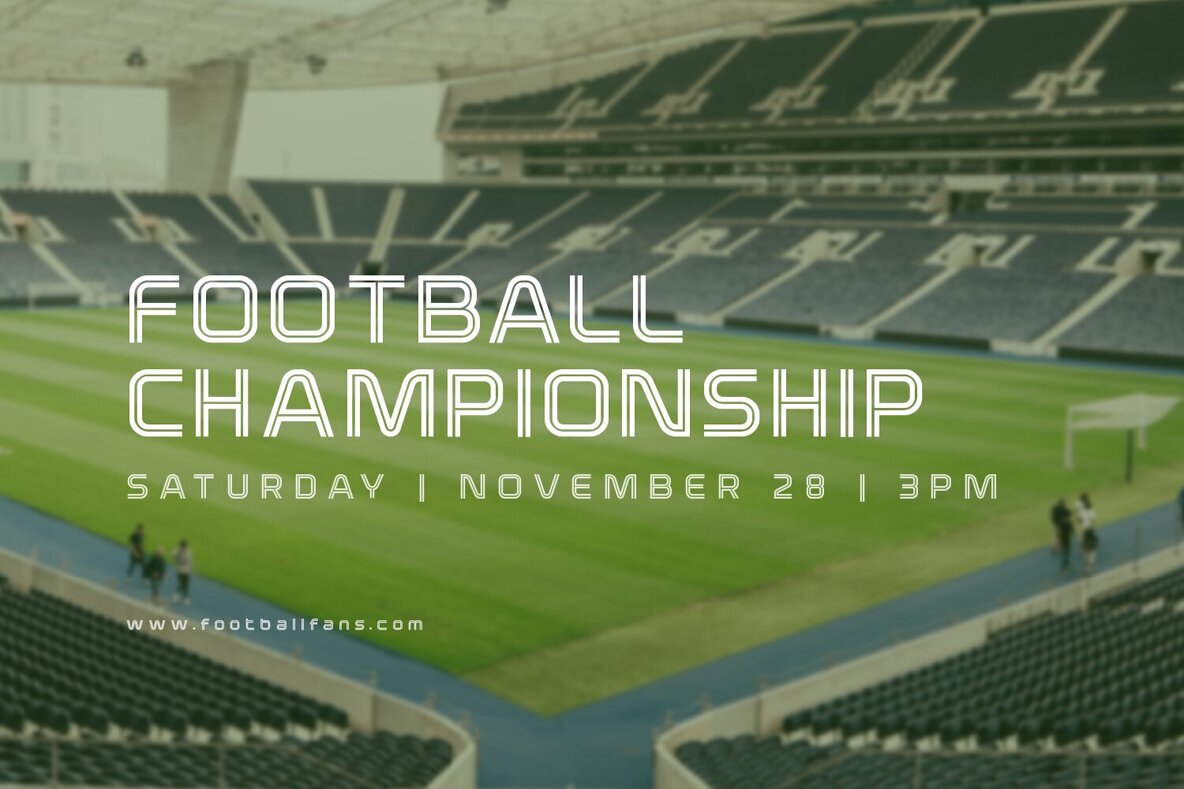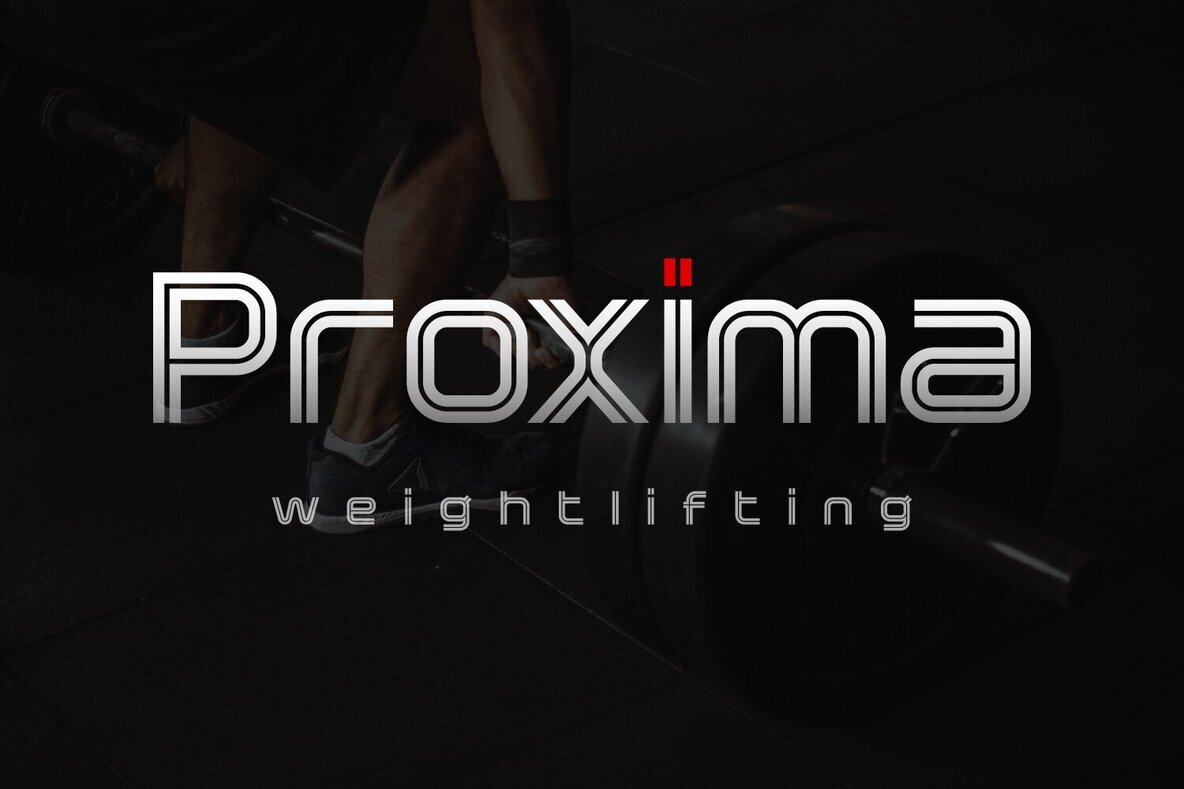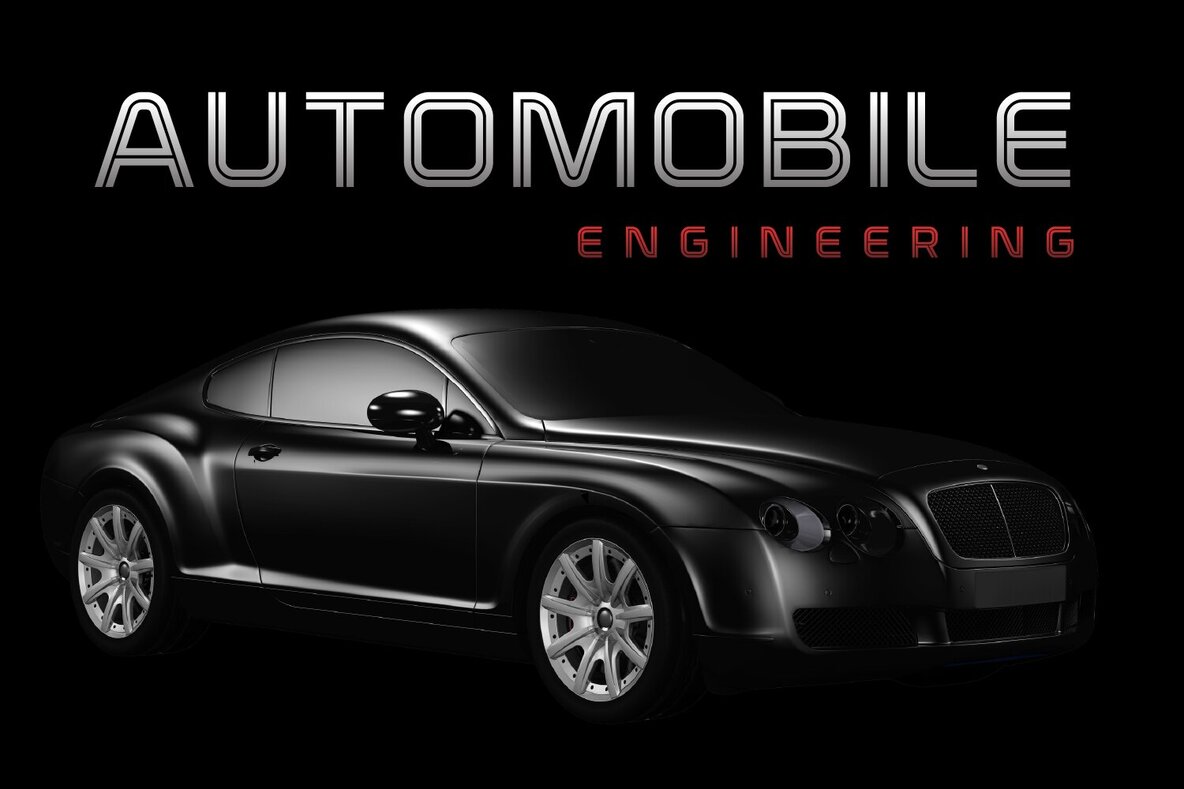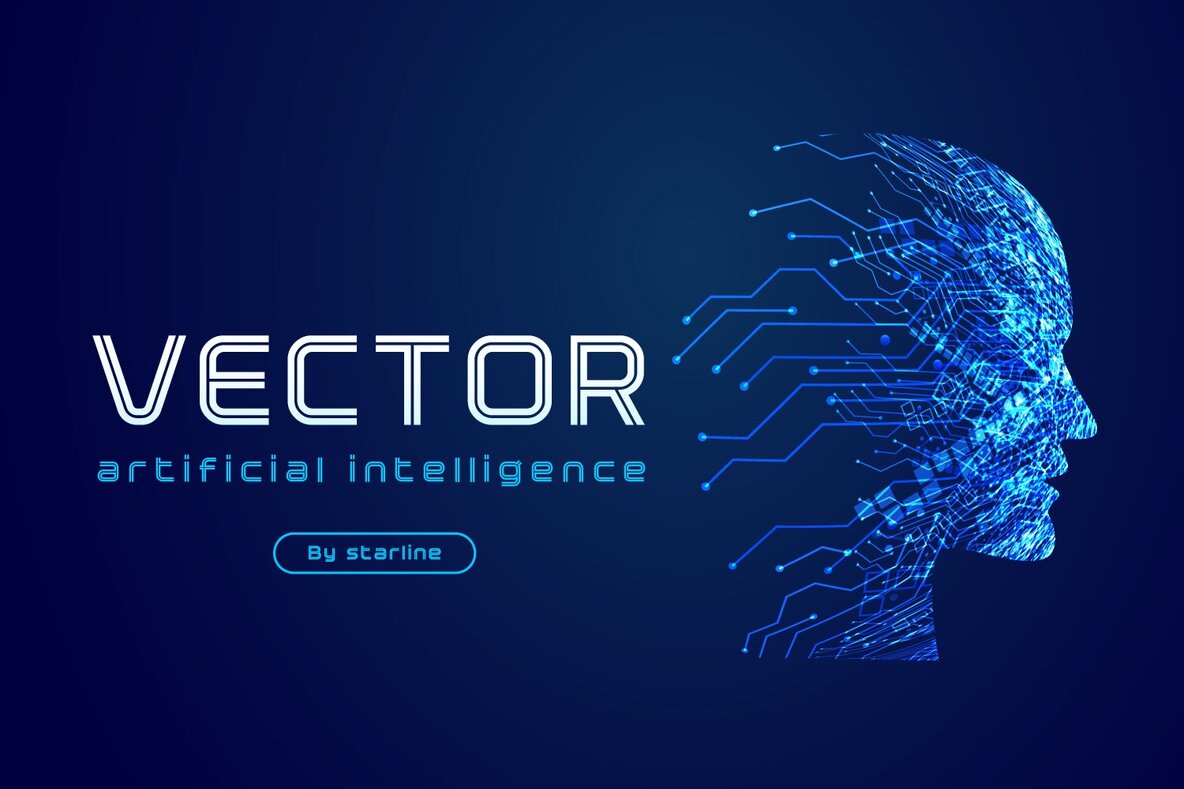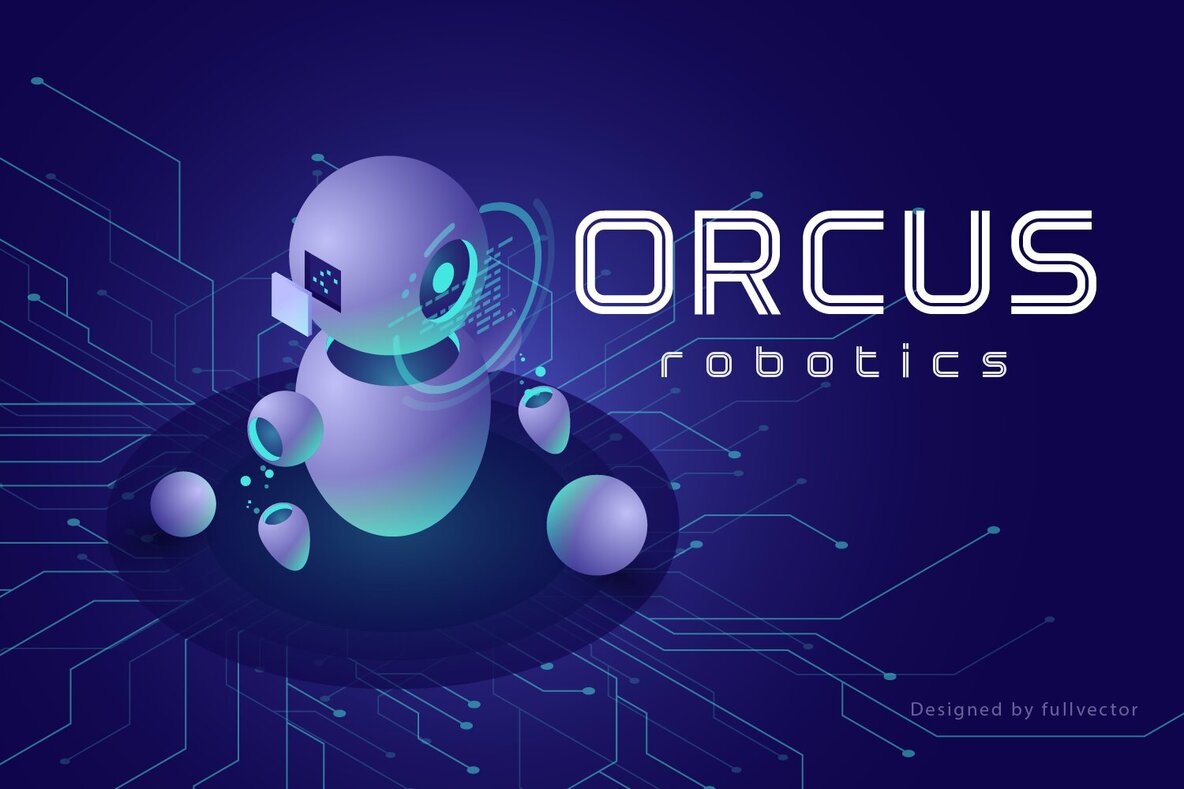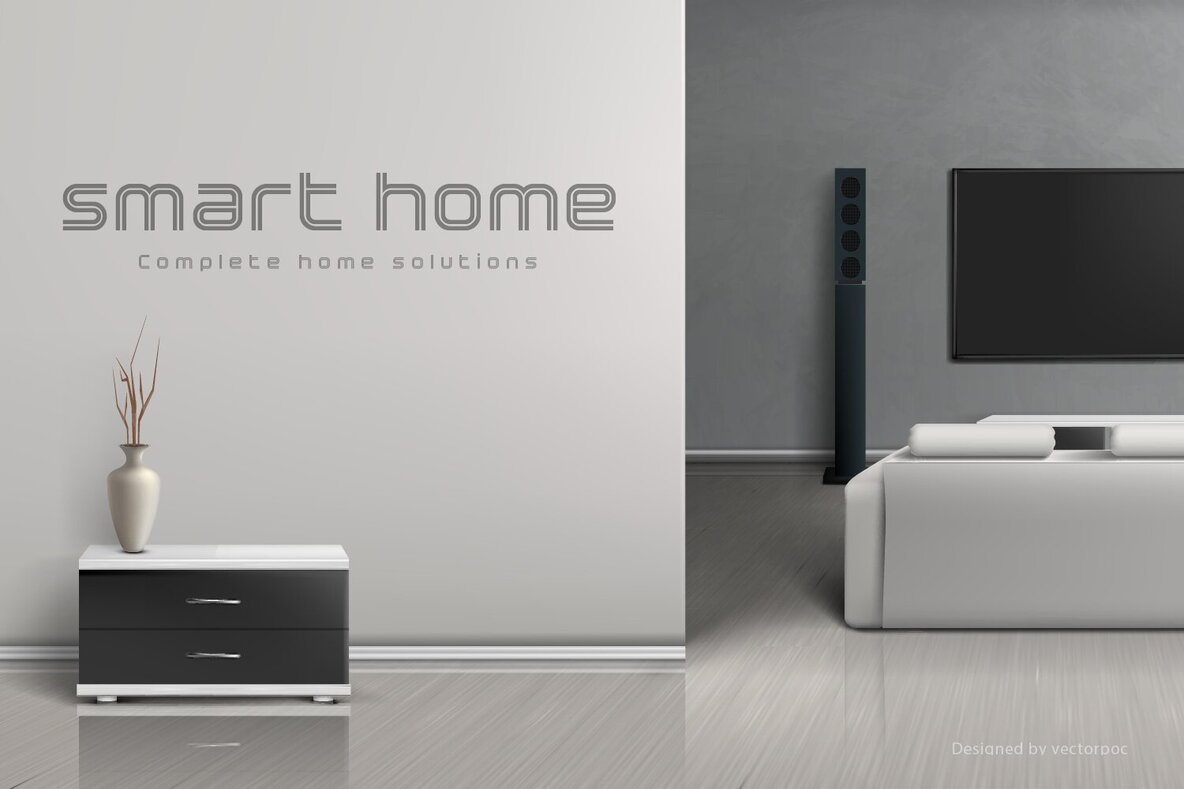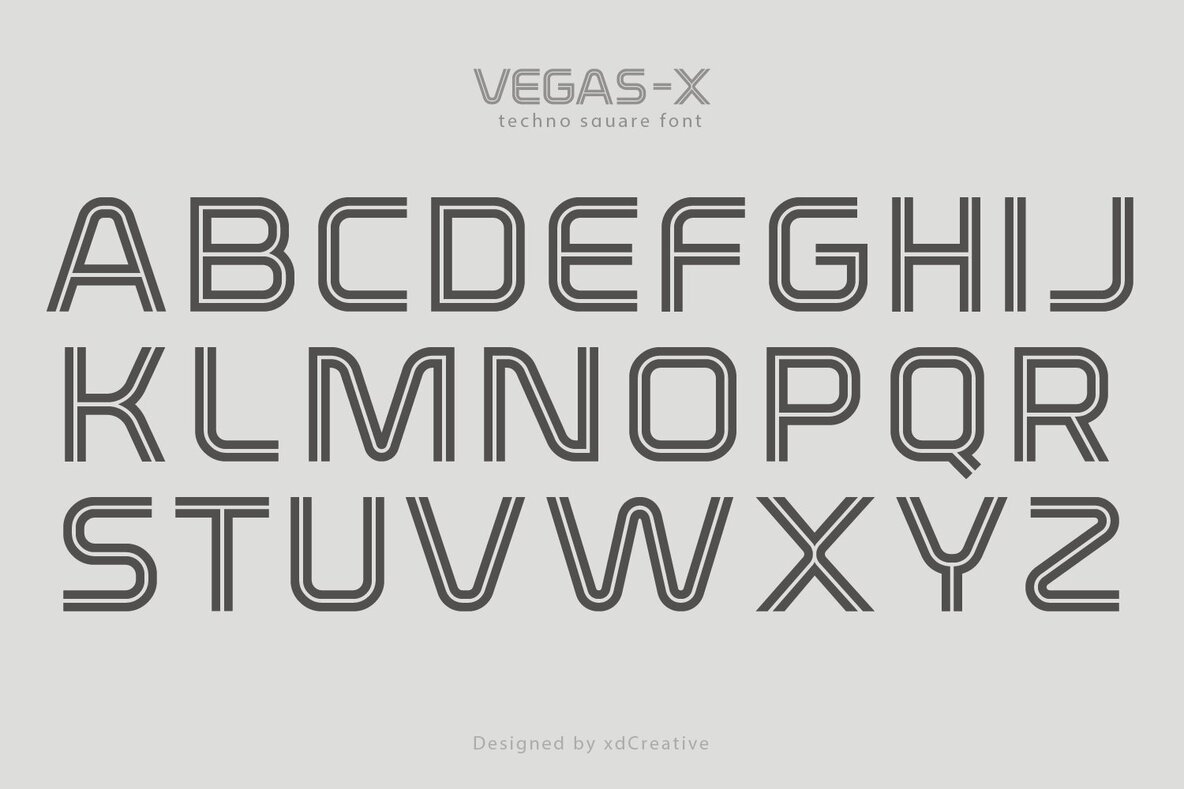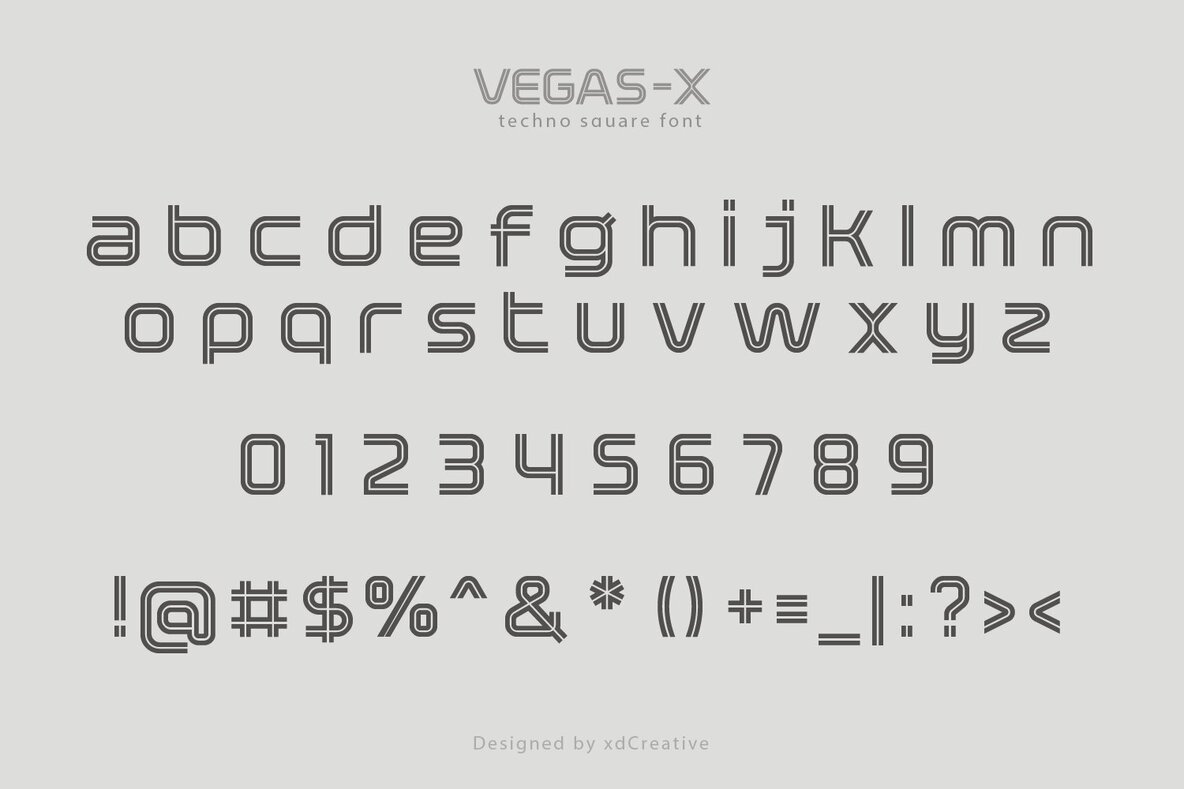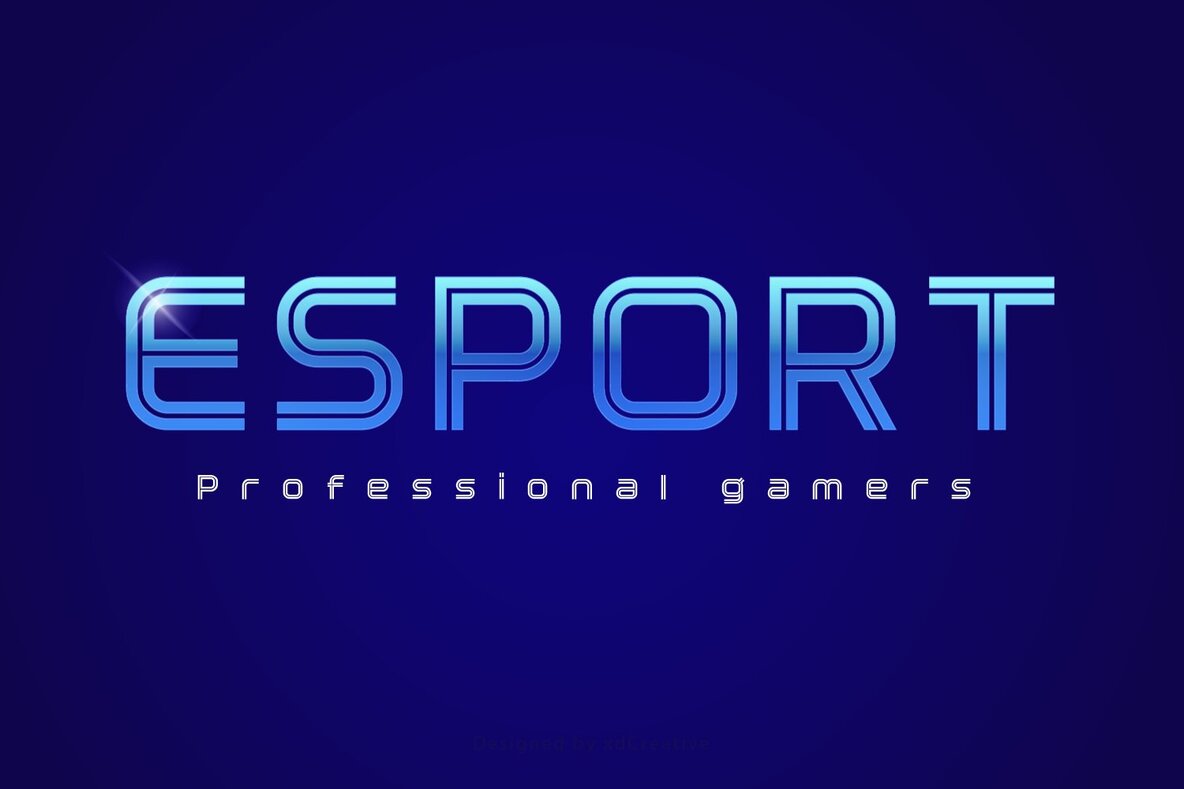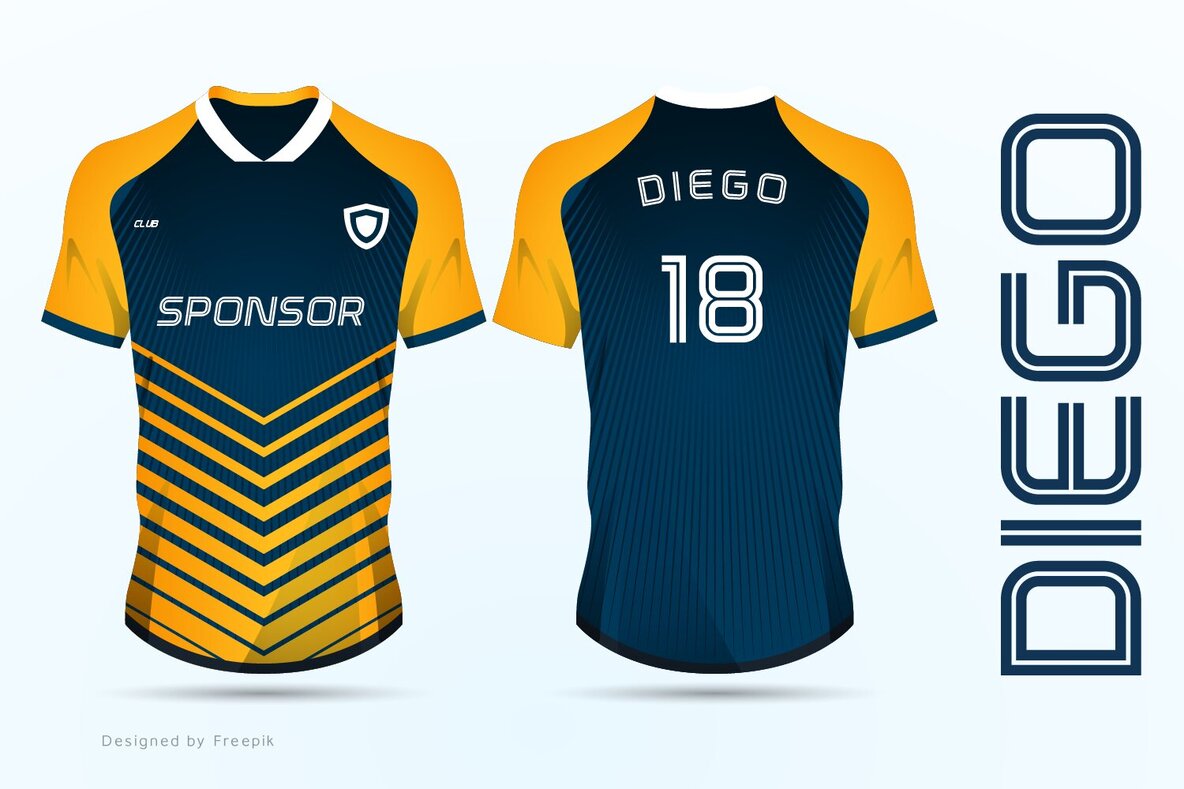
Vegas x Font
Vegas-X is a futuristic squared display font. This font is inspired by films, books, science and space technology, composed of a squared shape with smooth curves that gives a modern and futuristic impression. Vegas-X It is perfect for display, logo, icon and it will look stunning on any poster flyer or print. Use this font for your designs and explore its endless possibilities.